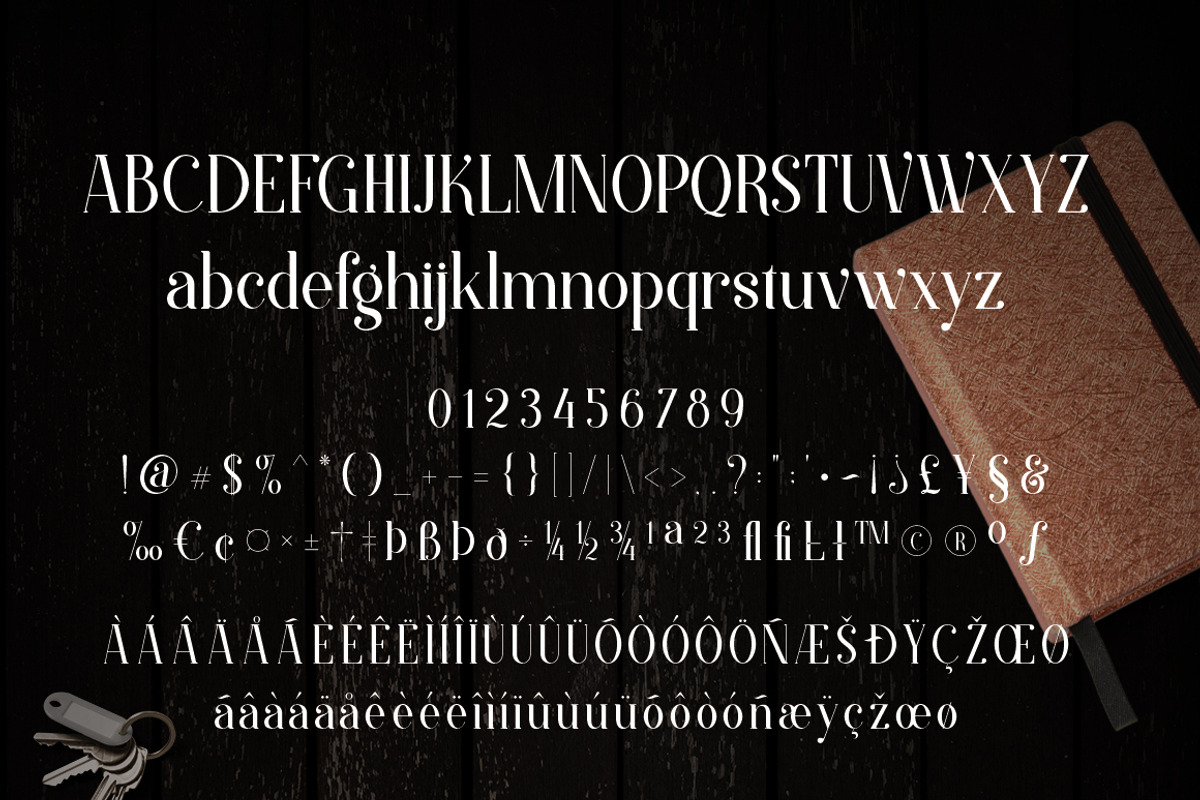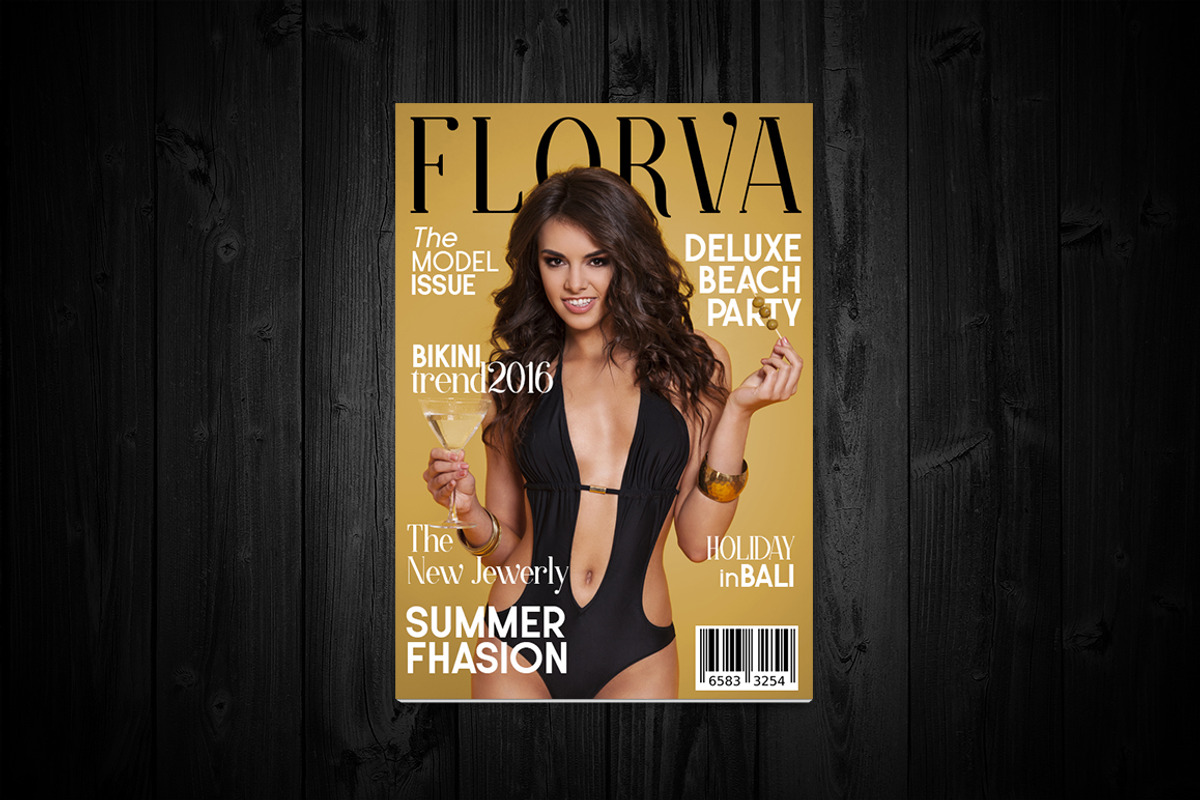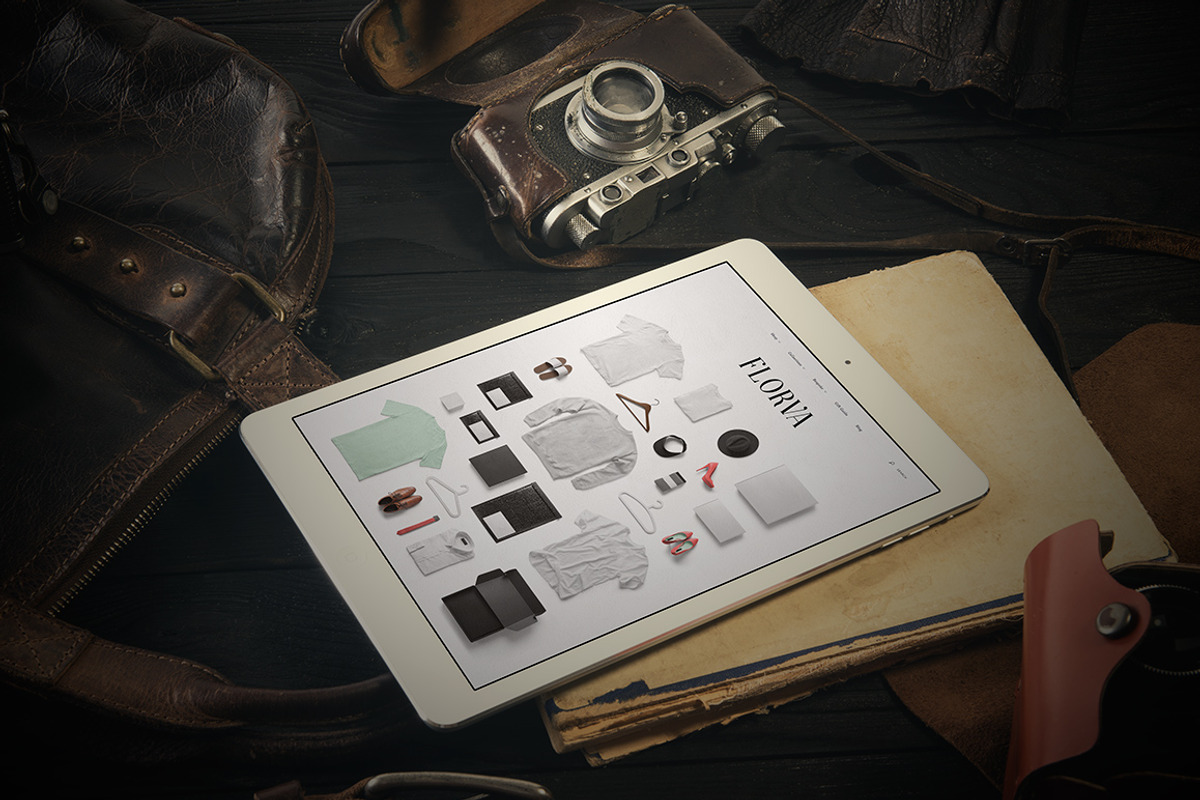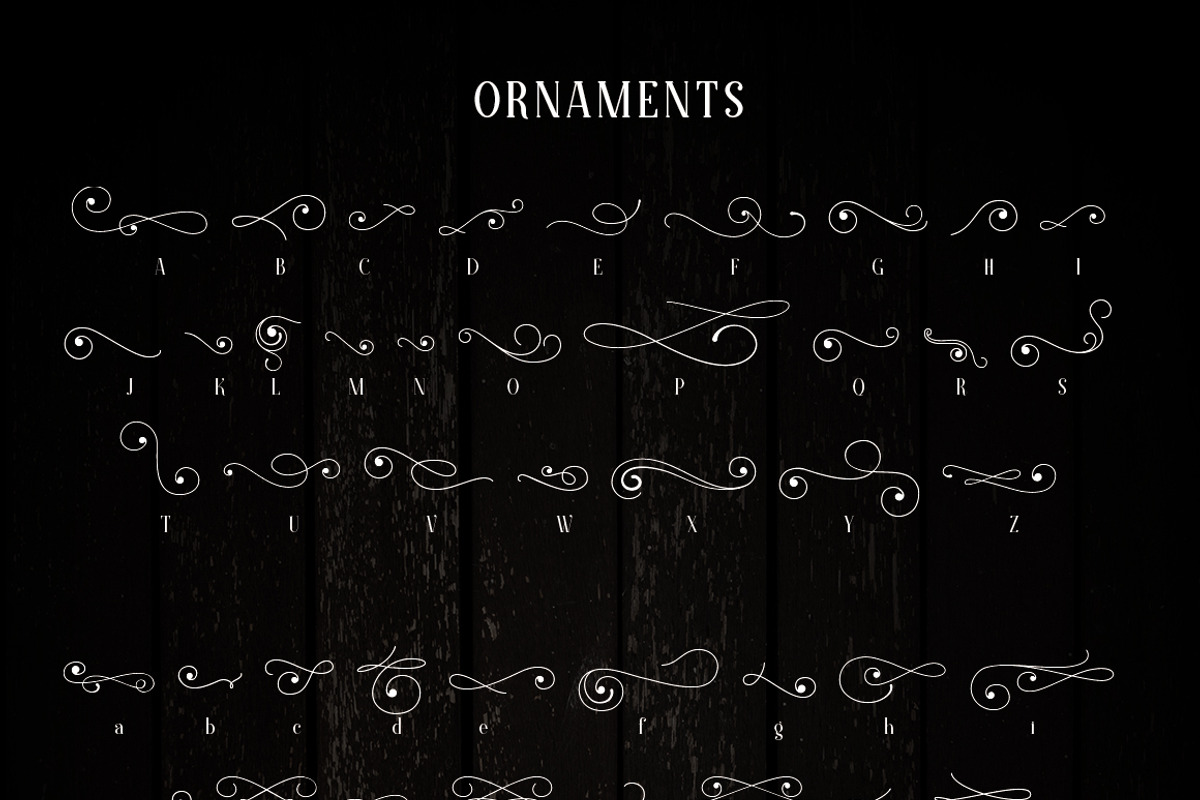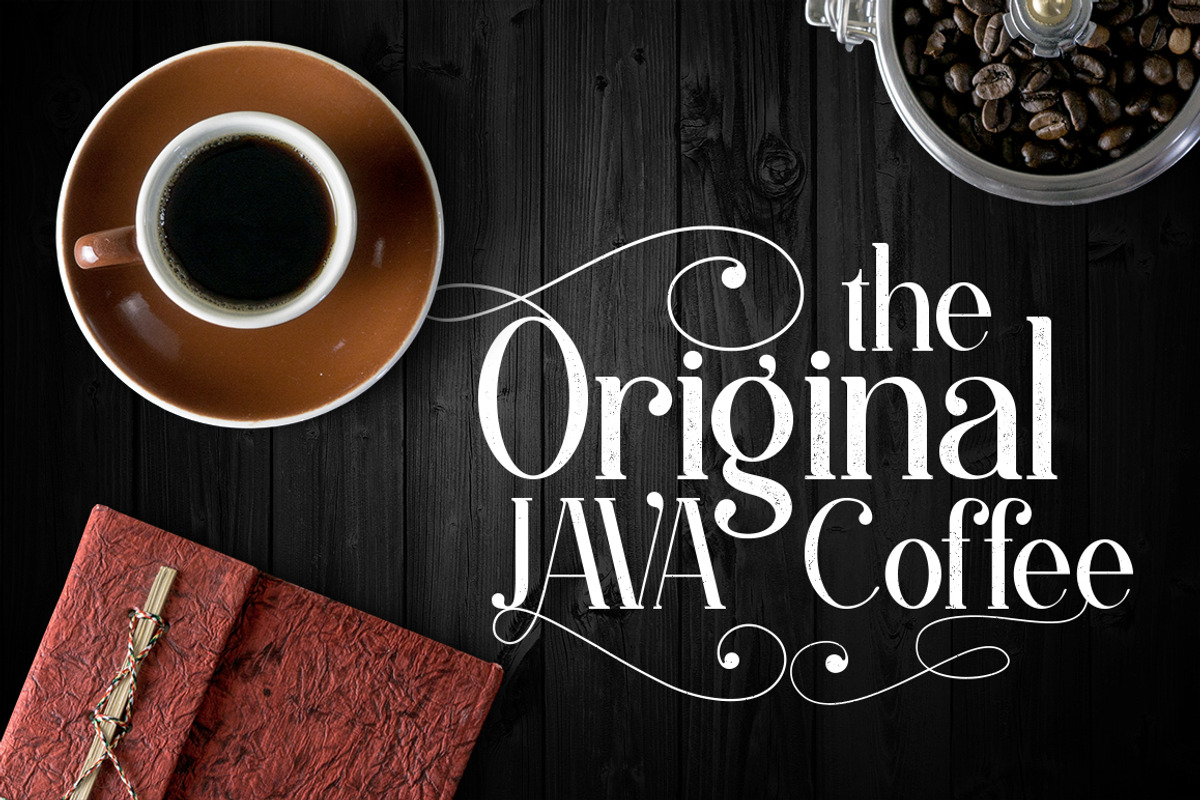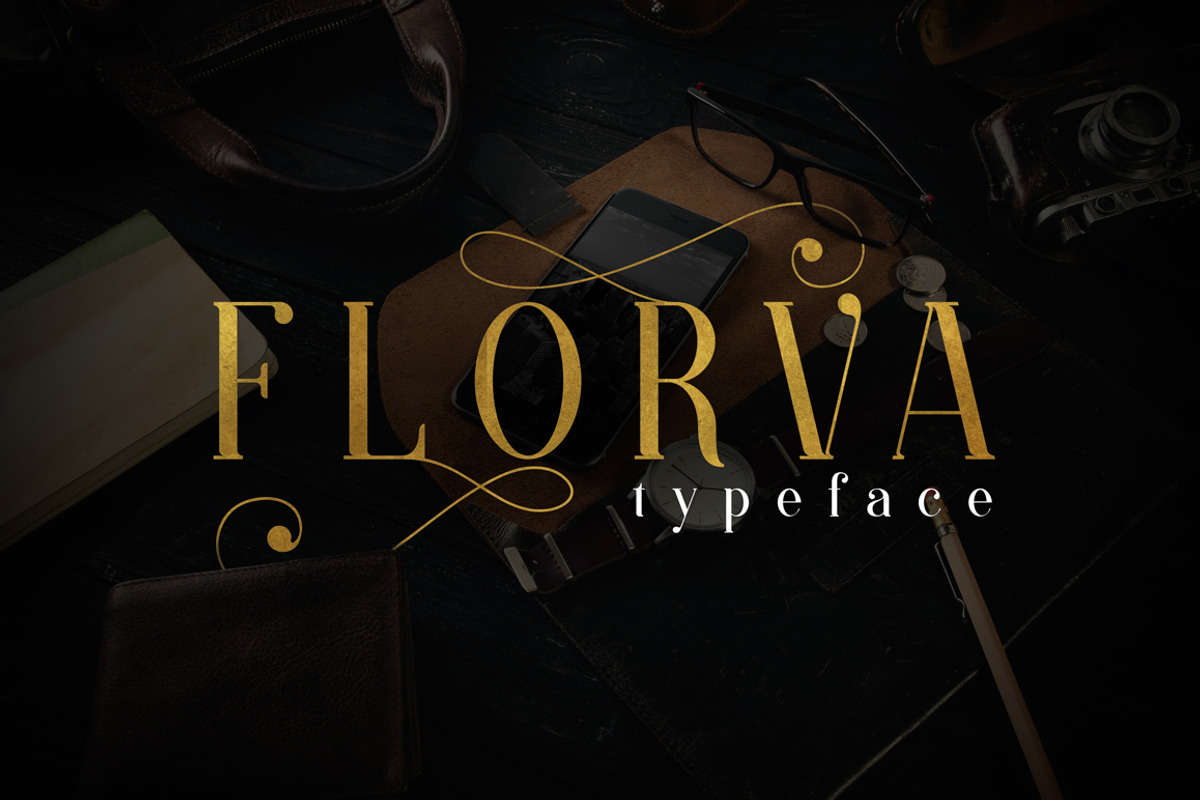
Florva
Florva by Font Bundles is a font selected for branding, posters, packaging, typography.
- FLORVA typeface has unique characters when compared with other serif fonts, it includes special bracketed serif shapes and combines them wit
- FLORVA Regular
- FLORVA Italic
- FLORVA Bold
- FLORVA Ornaments Regular
Florva by Font Bundles fits naturally into Branding, posters, packaging, typography.